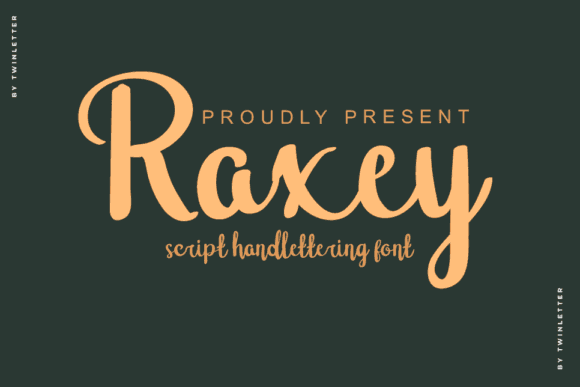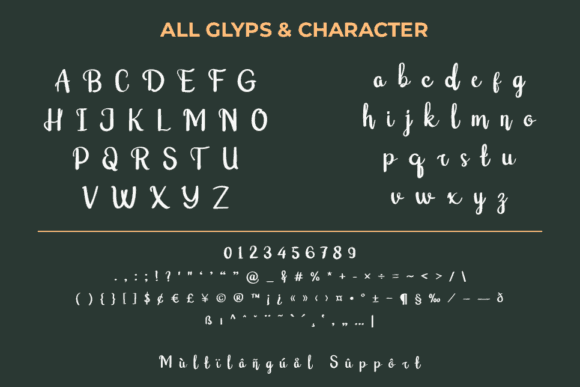
Introducing Raxey. A handwritten script font exuding elegance, in every stroke. This font will take your design projects to heights whether its branding tasks or creating captivating headings for weddings designs invitations signatures logos labels and more!